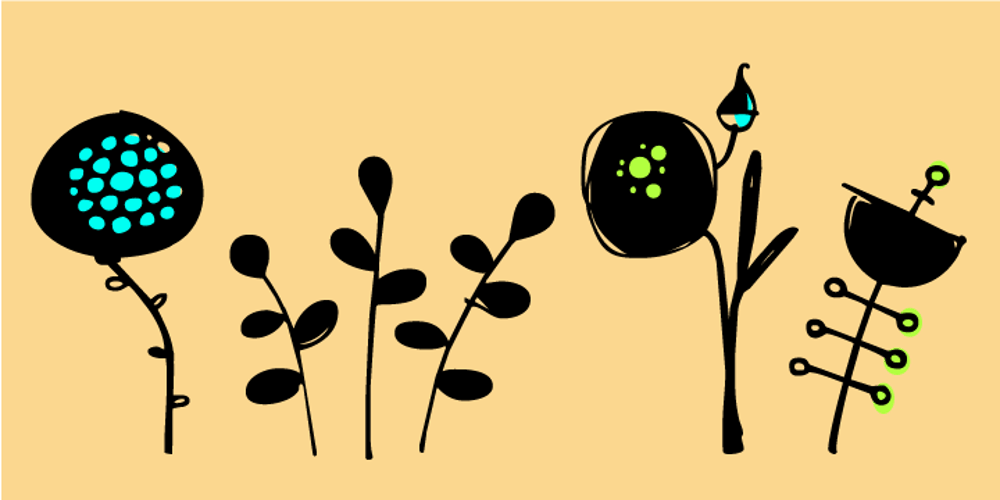
Flower Doodles Font Family was designed by Rae Kaiser and published by Outside the Line. Flower Doodles contains 1 styles and family package options. Flower Doodles… 15 line drawings, 15 reverse drawings… this font is drawn so that you can use a line drawing and its corresponding reverse together or use all the line drawings together or all the reverse ones together. Lots of looks with these 30 flowers.